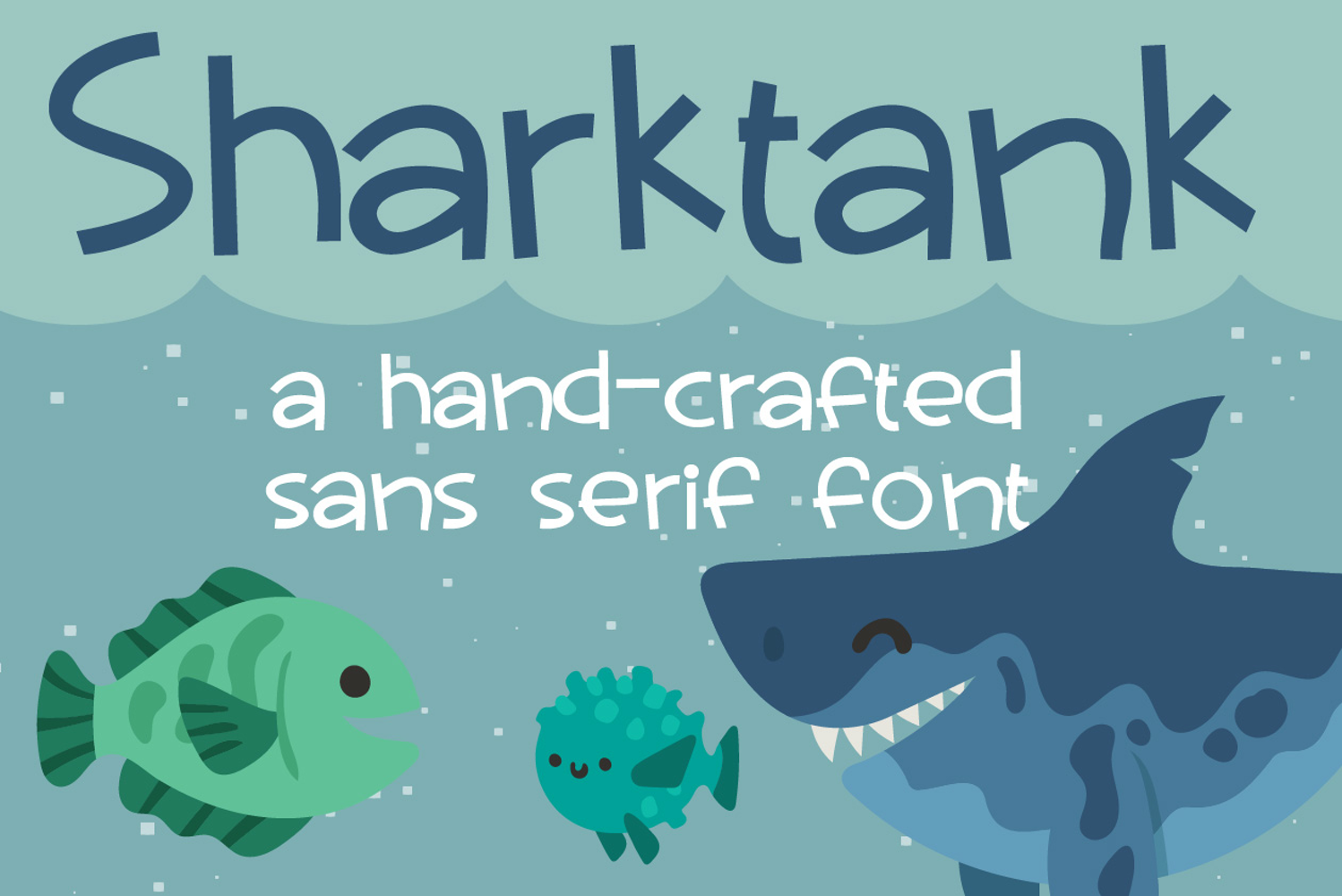
Sharktank Handcrafted Sans Serif Font
Sharktank is a playful handcrafted sans serif font with quirky letterforms, perfect for kids’ designs, ocean themes, crafts, logos, and cheerful headlines.